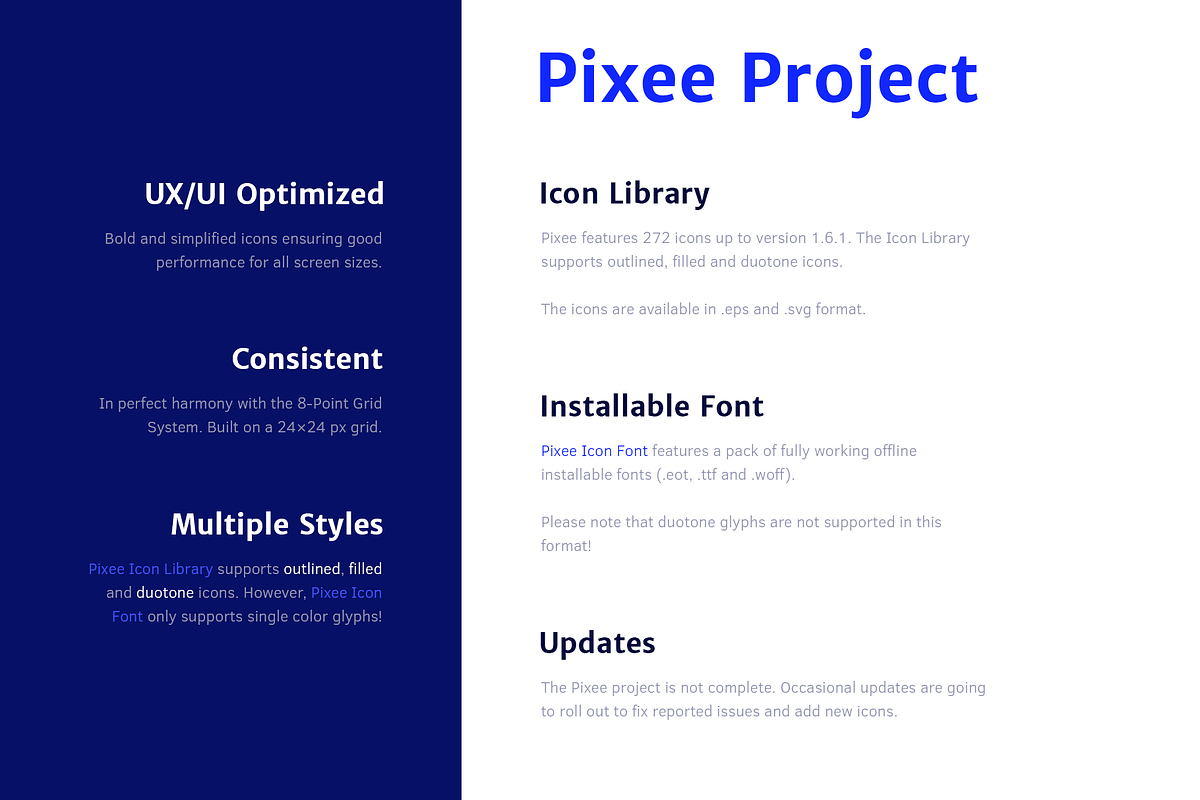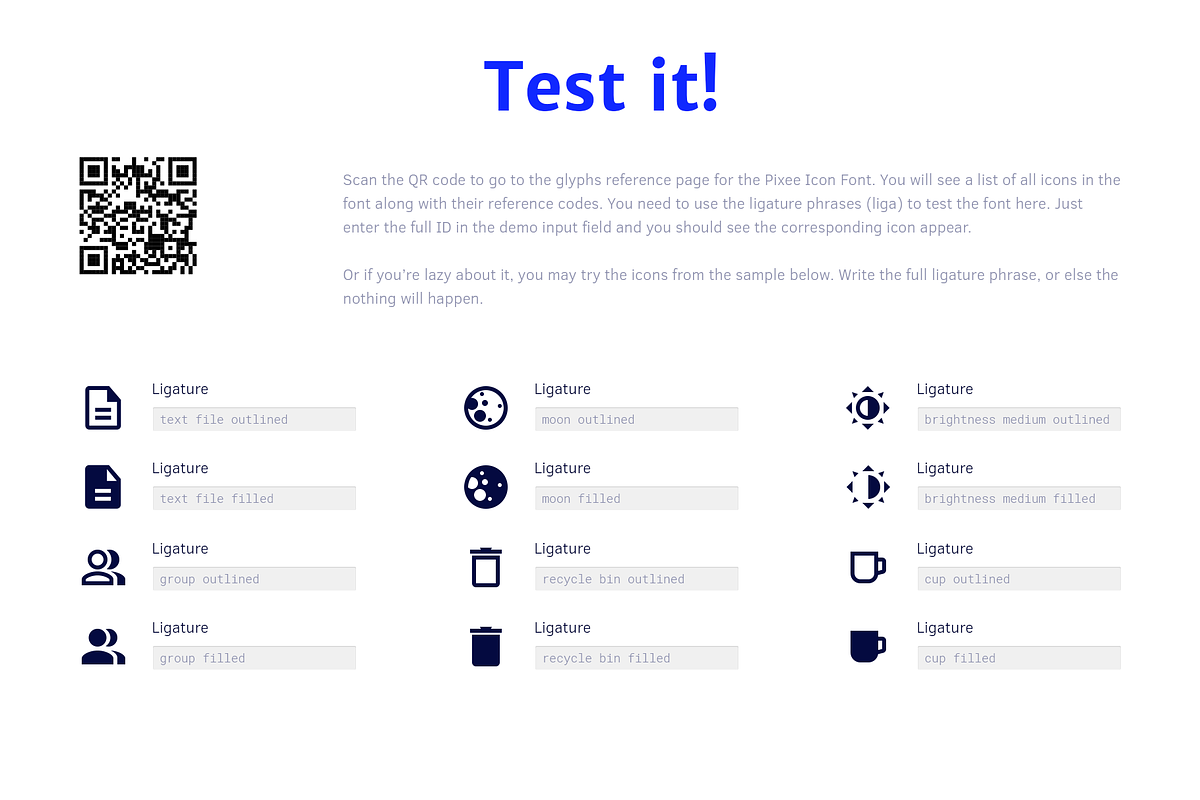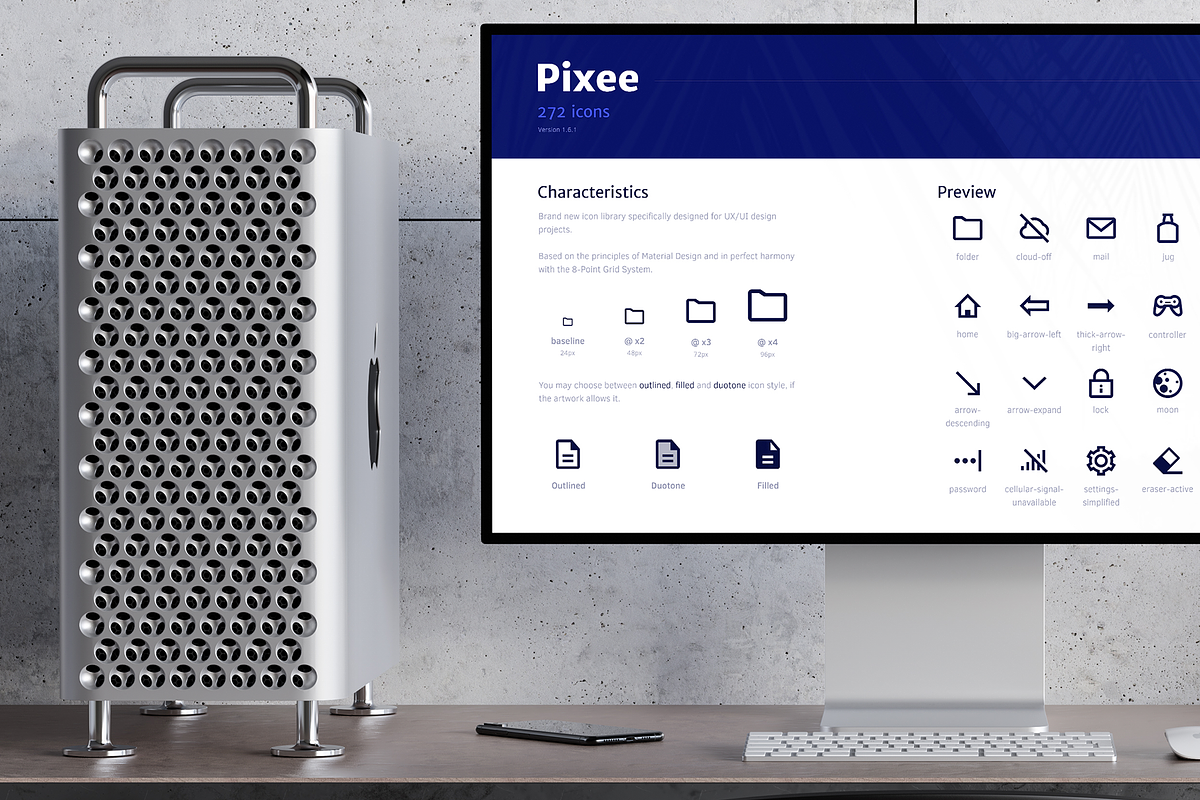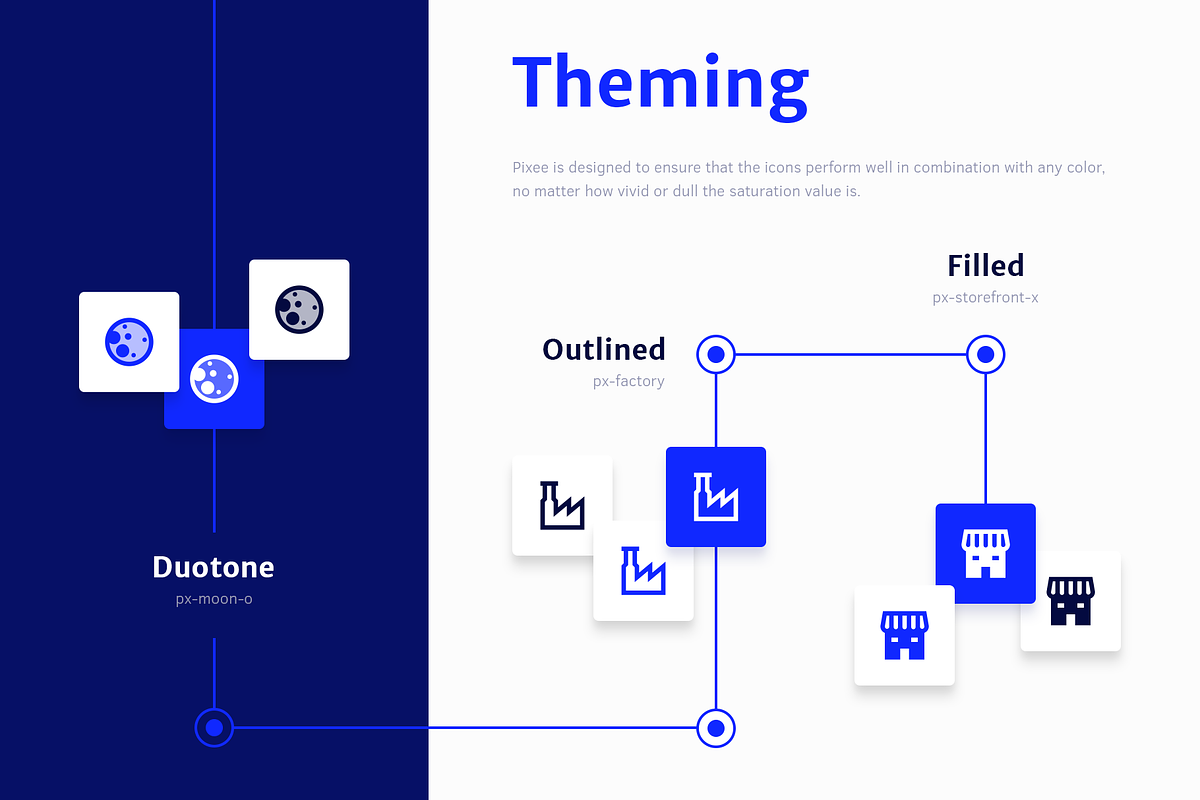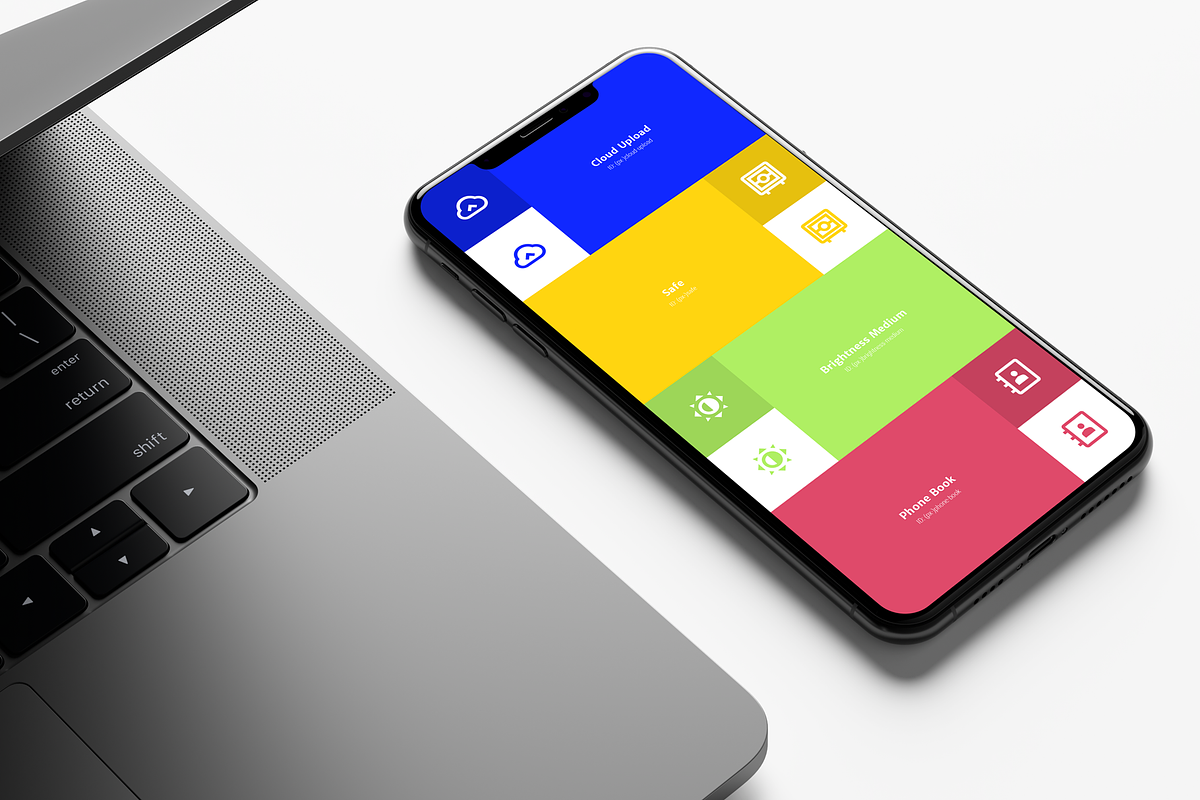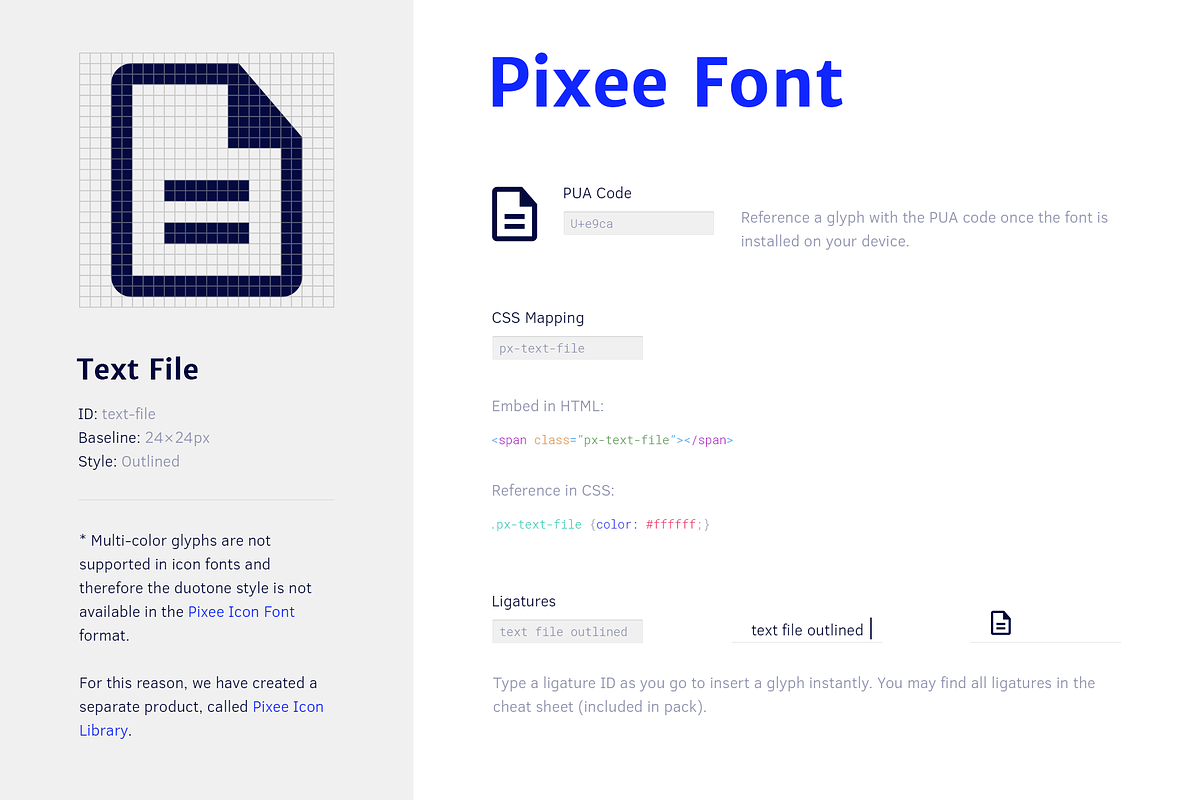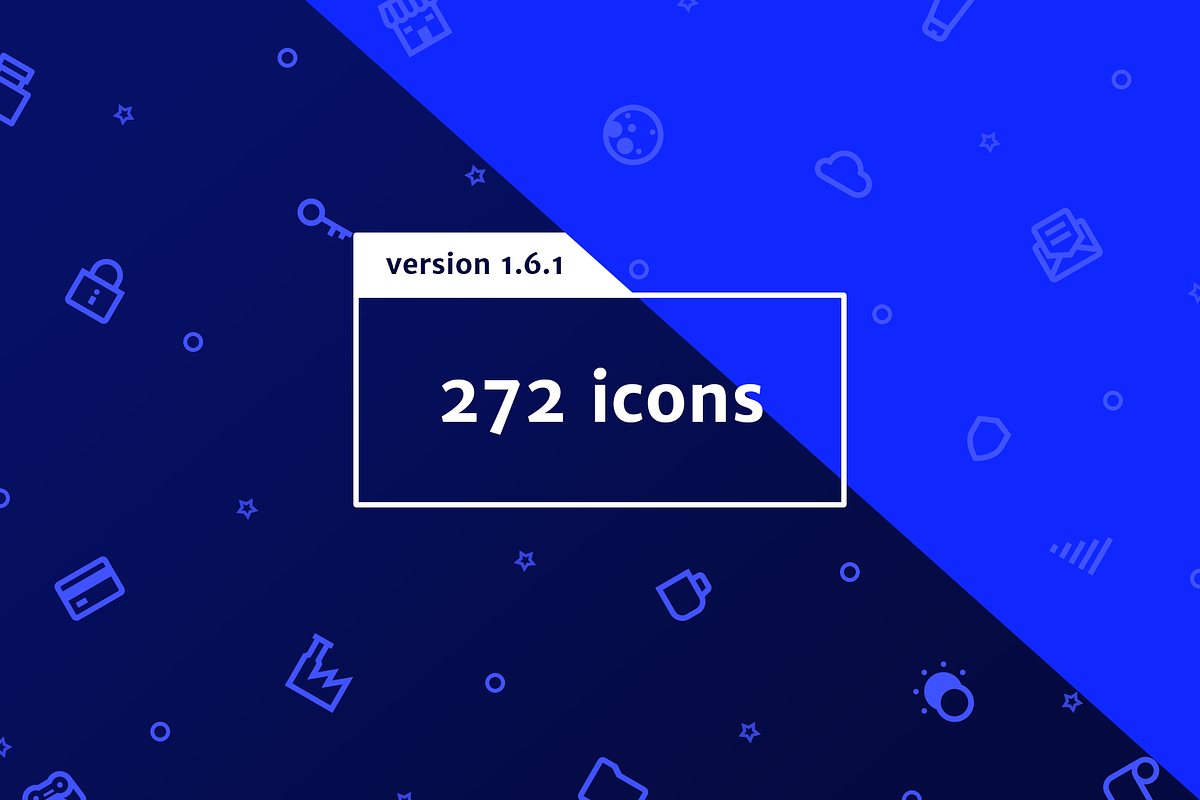
Pixee Icon Font
Pixee Font is a brand new icon font specifically designed for UX/UI projects.
Based on the 8-Point Grid System
Small, simple and bold icons
Outlined and filled icon styles (duotone is not supported by this product)
Style: Outlined, Filled
Icon fonts do not support multi-color glyphs; and therefore, Pixee Icon Font only includes outlined and filled vectors. Two-tone icons are supported in the Pixee Icon Library, which is a separate product (available at my shop).